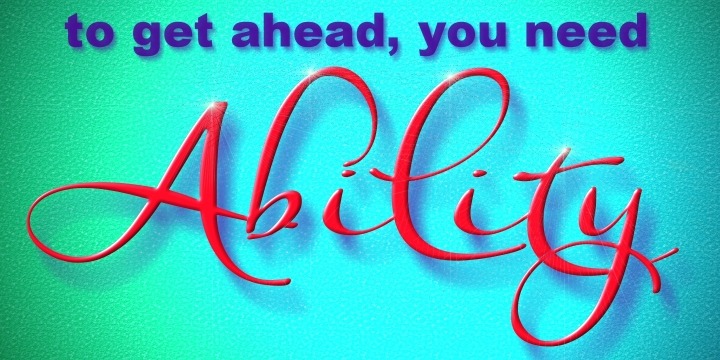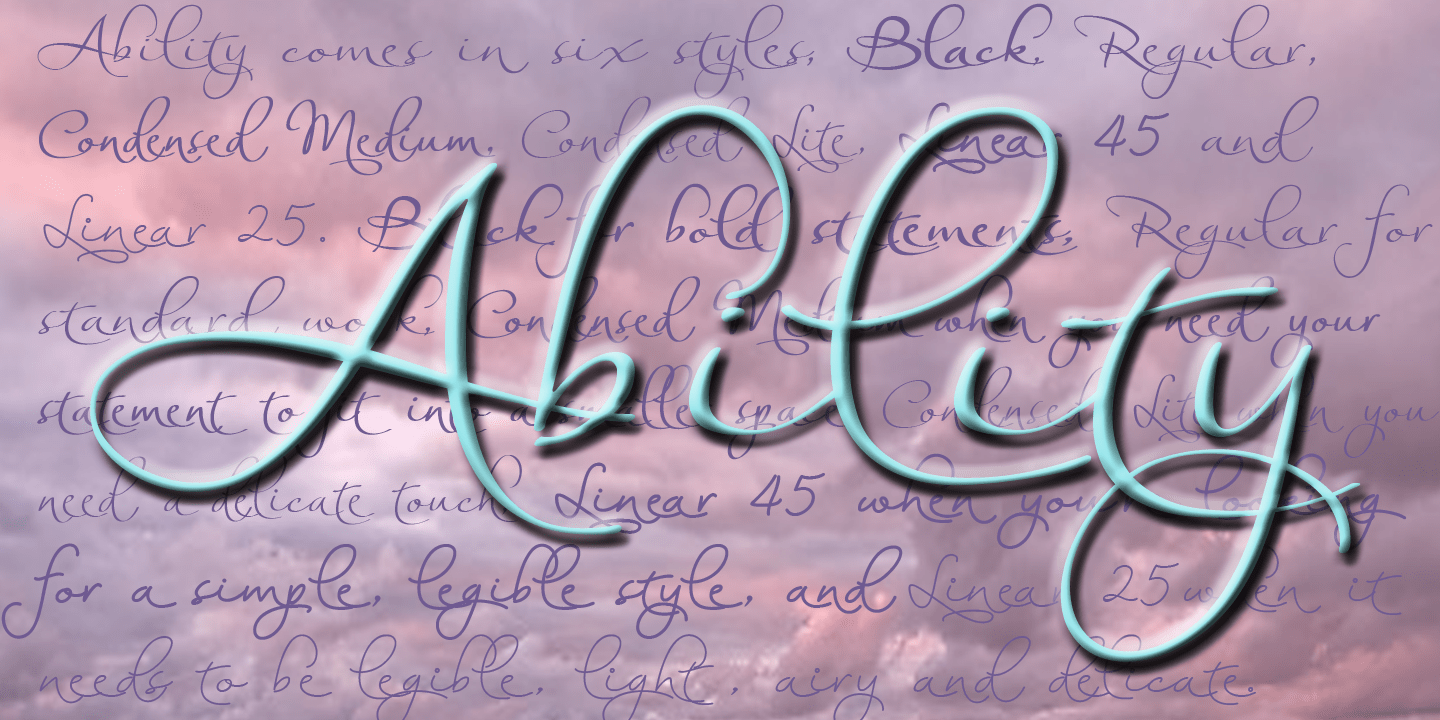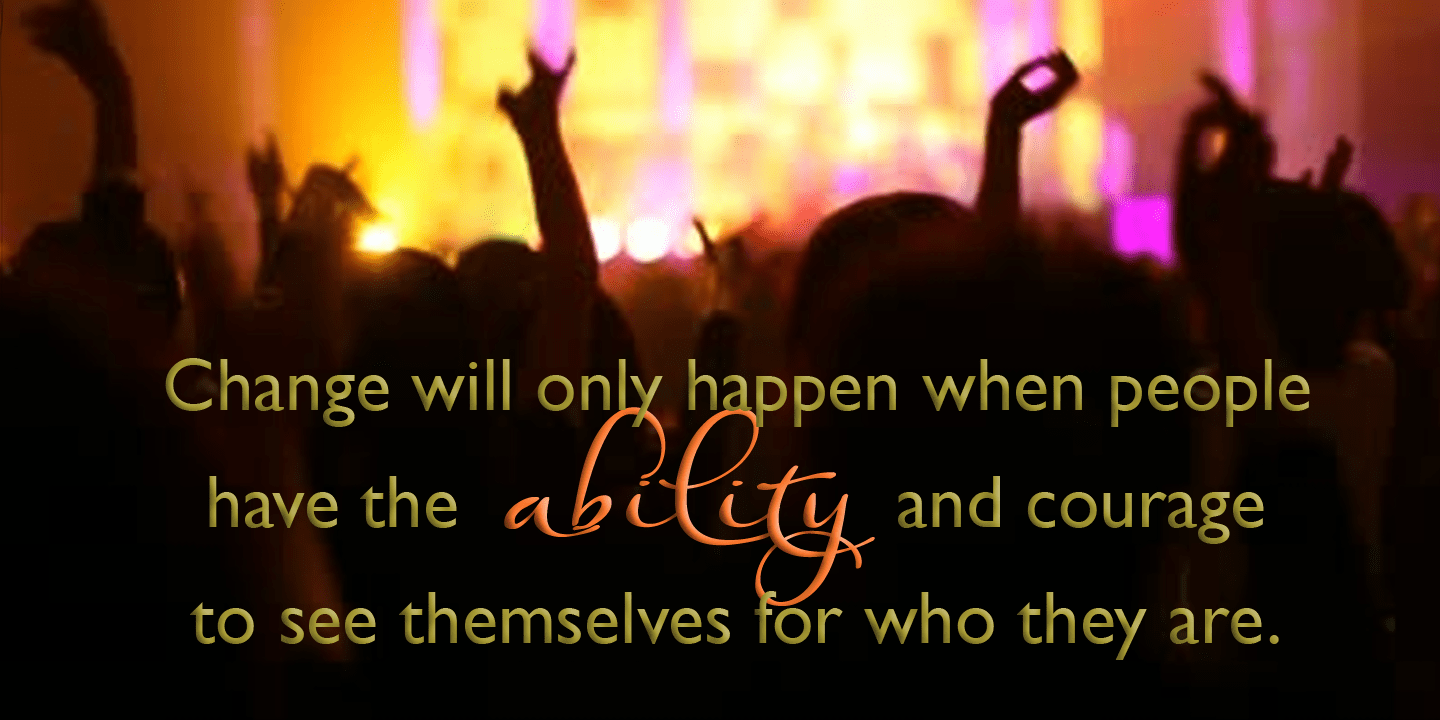
Ability
Buy NowAbility is a family of stylish and contemporary handwriting fonts that combine the vigor of hand-drawn fonts such as Affable with the elegance of fonts such as Blythe. What is unusual about Ability is that it enables a word to be formed from a group of letters in a variety of ways: not only the conventional linking of letters as in a cursive script or the placing of letters close to each other on a common baseline, but it uses the overlapping of the swashes and swirls that contribute to the individuality of the characters to integrate the letters into a single word.
The font is fully professional: carefully letterspaced and kerned. It contains over 235 characters - (upper and lower case characters, punctuation, numerals, symbols and accented characters are present). It has all the accented characters used in the major European languages.